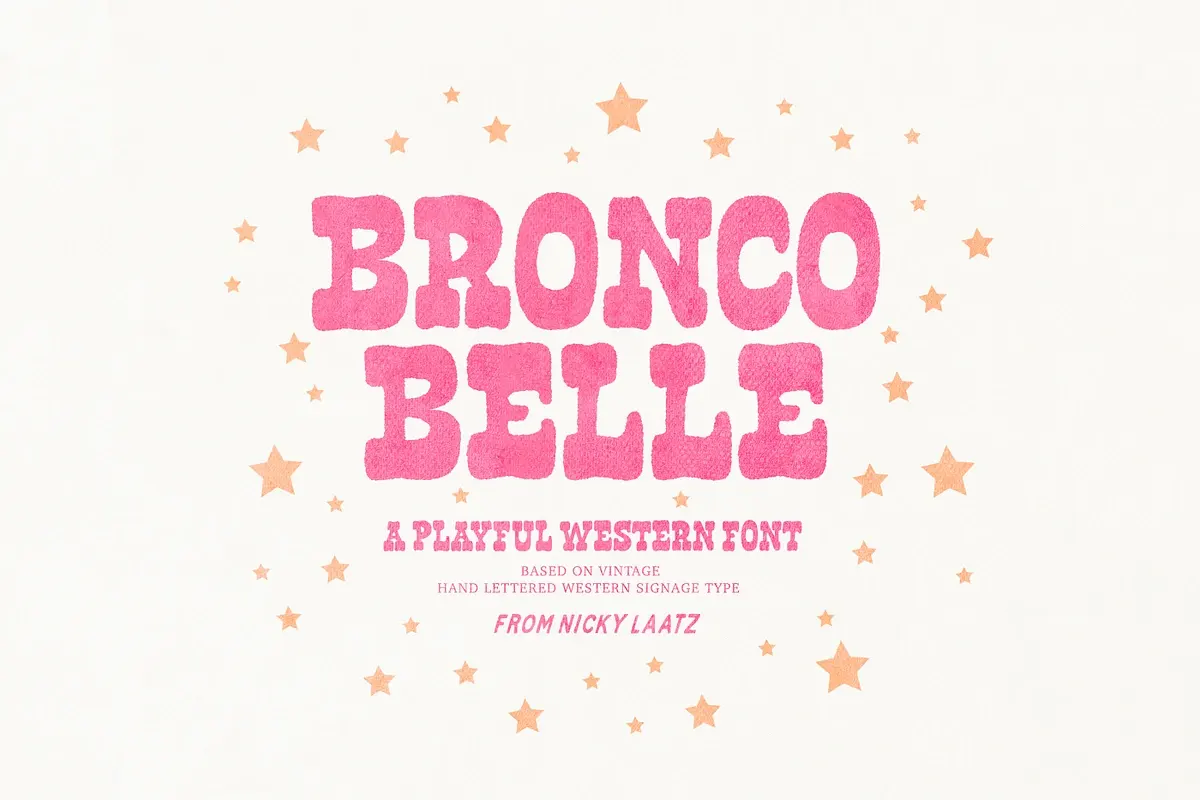
Bronco Belle Typeface Free Download is a bold and rustic typeface that combines vintage charm with a strong, modern presence. Its thick strokes and playful letterforms make it perfect for projects that need a rugged, western, or country-inspired vibe, such as posters, branding, logos, t-shirt designs, and more.
Whether you're designing for a western-themed event, creating rustic branding for a local business, or just need a bold typeface for your creative project, Bronco Belle delivers both strength and character. Its distinctive look ensures that your typography makes a statement.
Bring a touch of rugged elegance to your designs with Bronco Belle Typeface Free Download, and create typography that stands out with a blend of vintage, western charm and modern boldness. Perfect for designers looking to create impactful, distinctive designs.